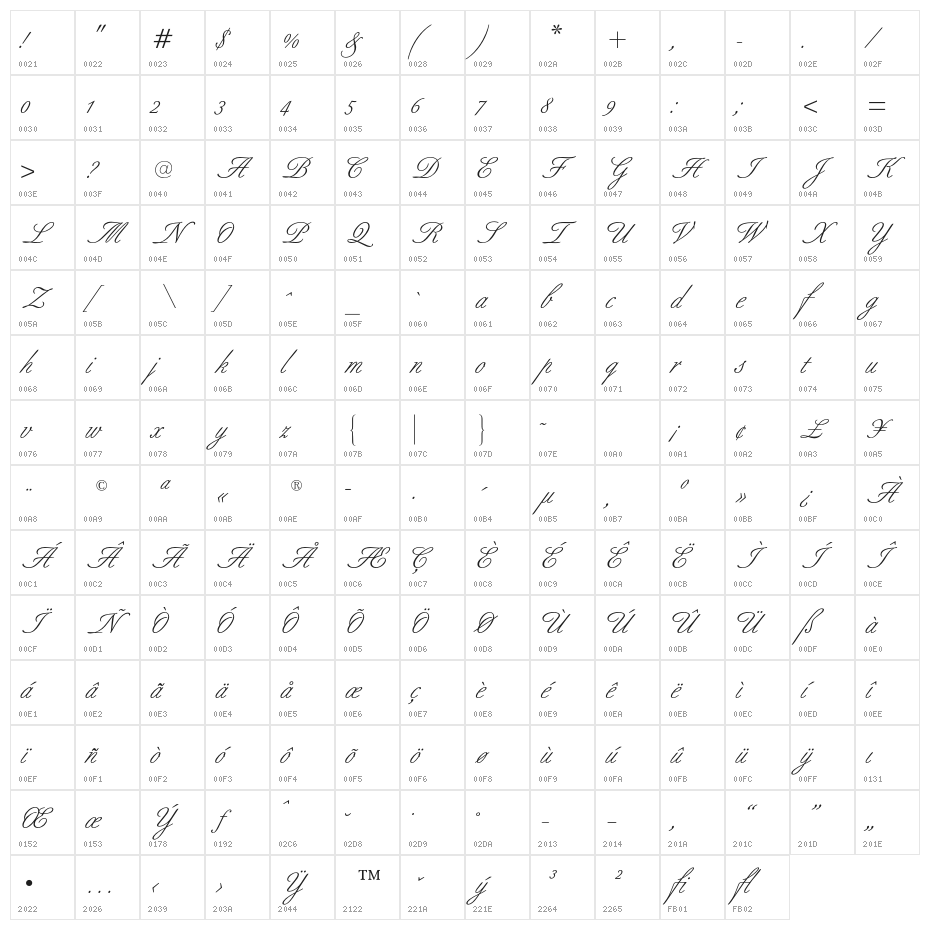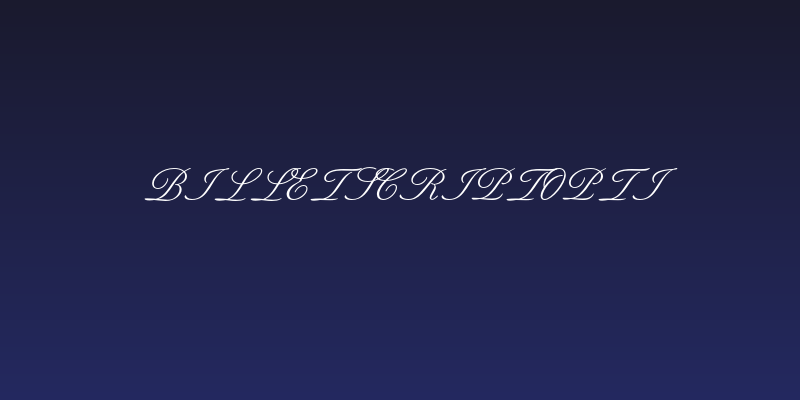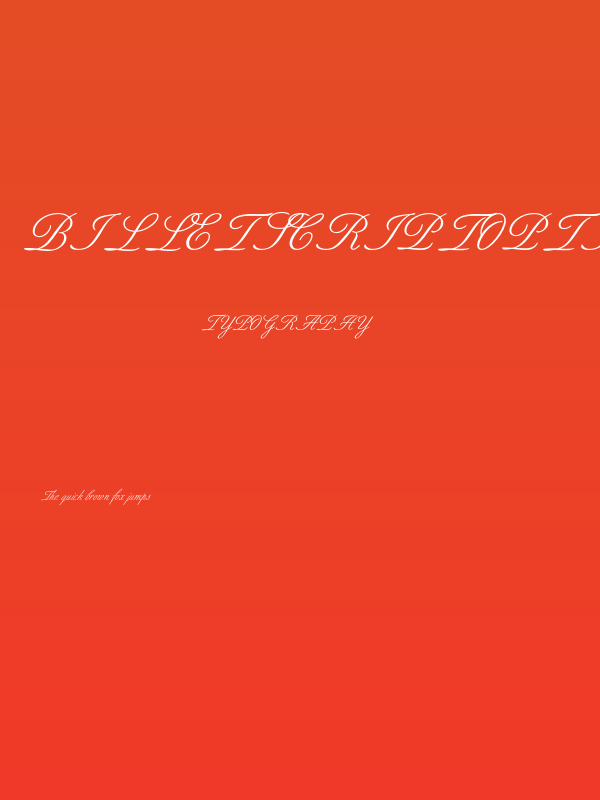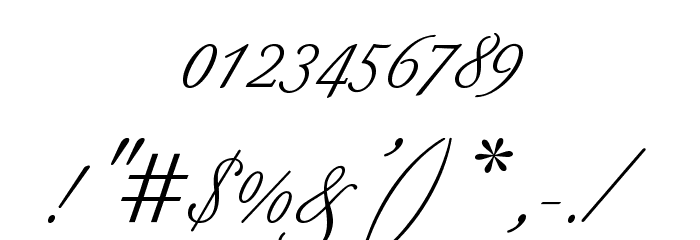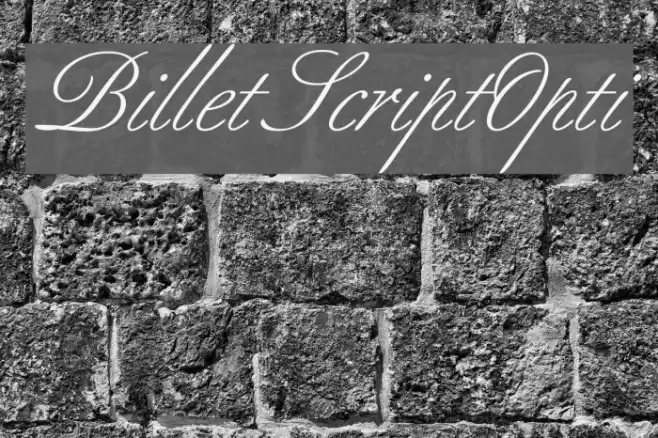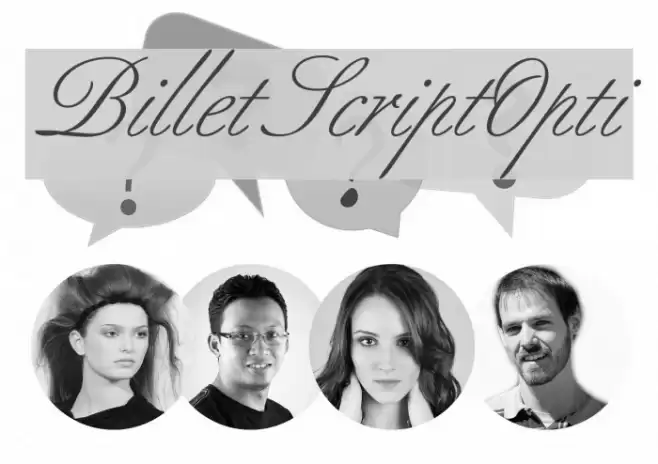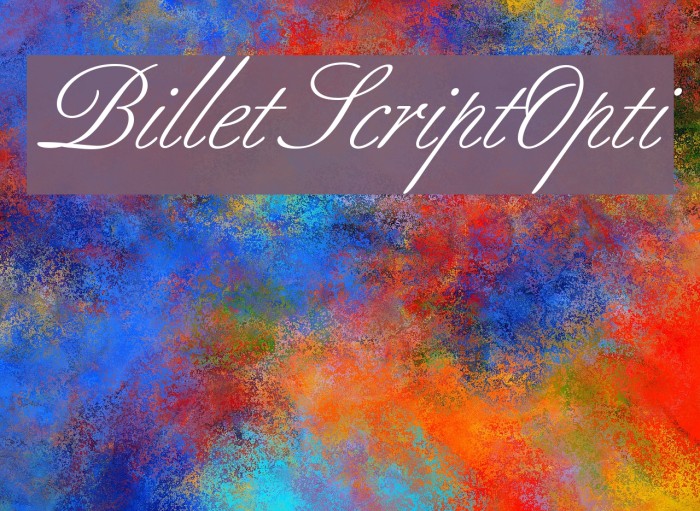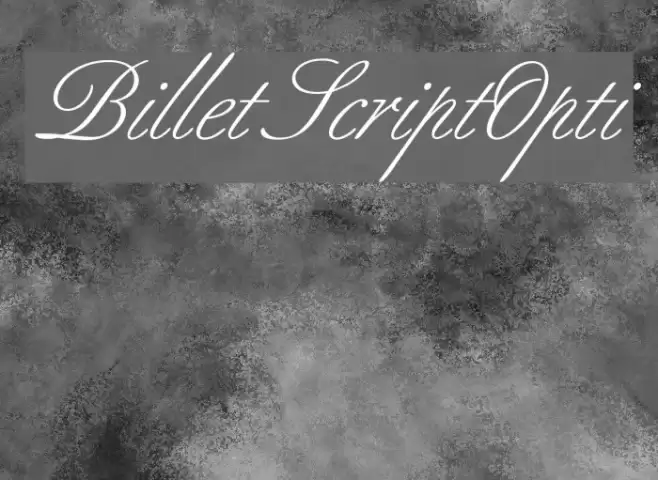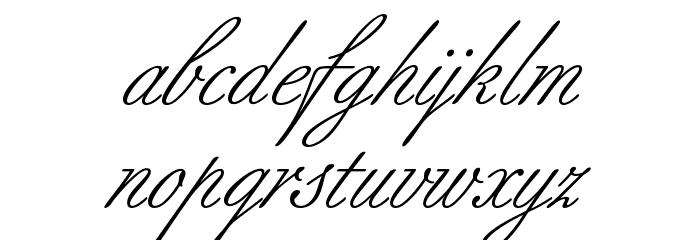
BilletScriptOpti Font
BilletScriptOpti Description
This elegant script font features flowing, cursive letterforms with a classic and sophisticated appearance. The uppercase letters are ornate and slightly larger than the lowercase, which are more delicate and refined. The numerals are consistent with the overall style, maintaining the same fluidity and grace. Special characters are well-integrated, adding to the font's versatility. The strokes are smooth and connected, creating a seamless and harmonious look. This font exudes a sense of elegance and formality, making it ideal for projects that require a touch of class and refinement.
| Overall Style | Classic |
| Use Case | Logos, Invitations, Decorative text. |
| Proposed Projects | Wedding invitations, formal event programs, luxury branding, elegant stationery. |